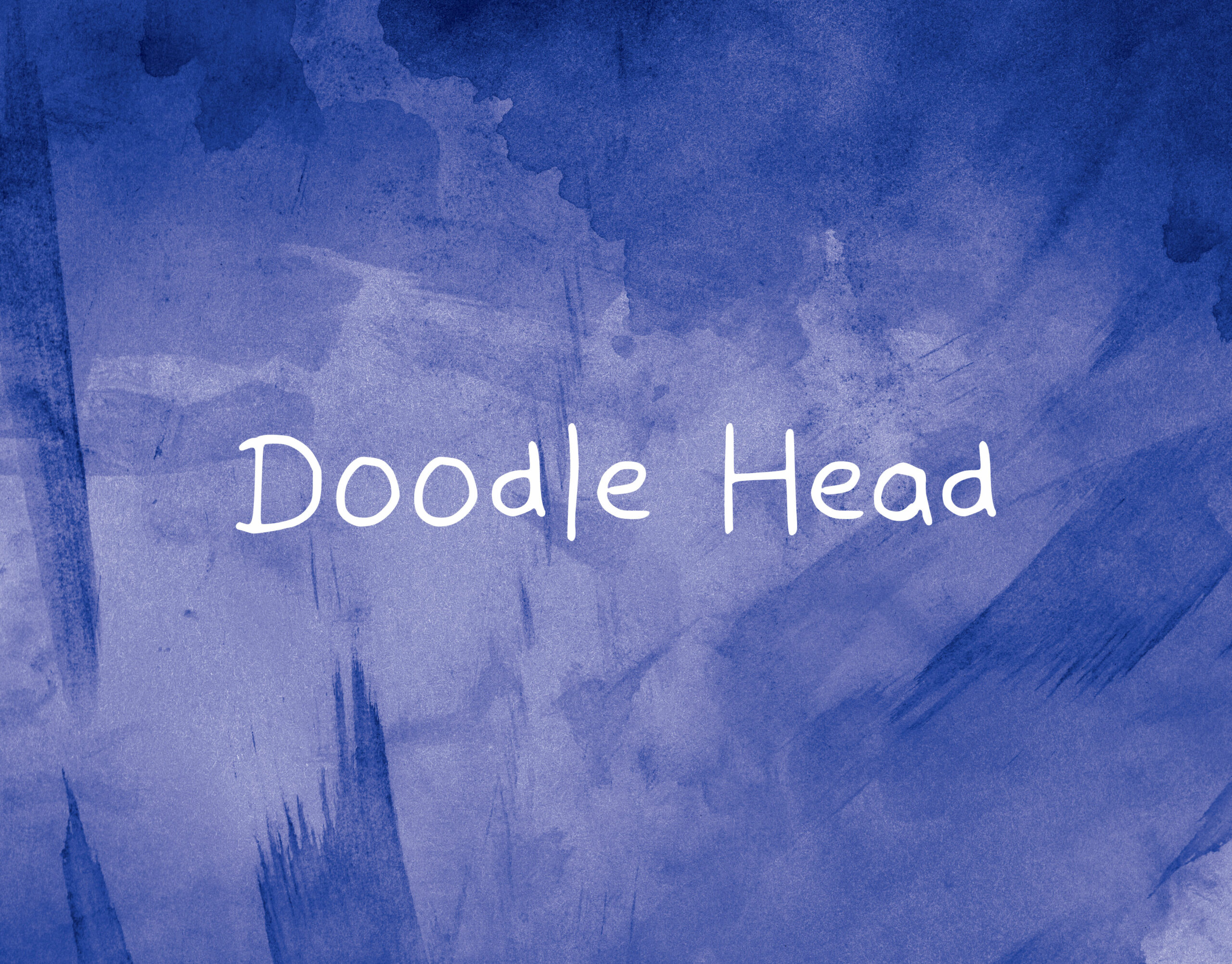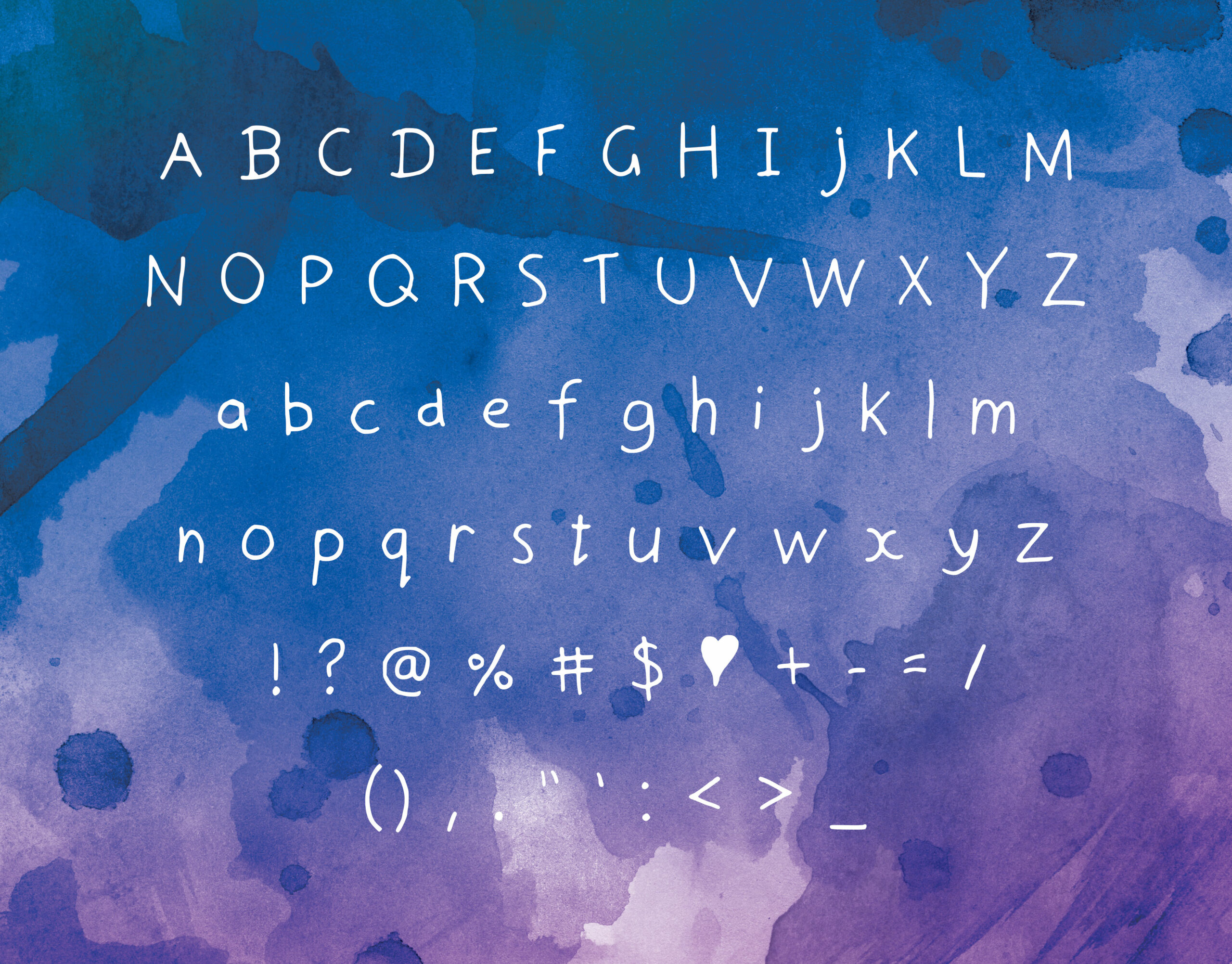
Doodle Head Font
About Doodle Head Font
Doodle Head is a simple sans serif handwritten font. Easy to read and tidy but also fun! Includes basic punctuation.